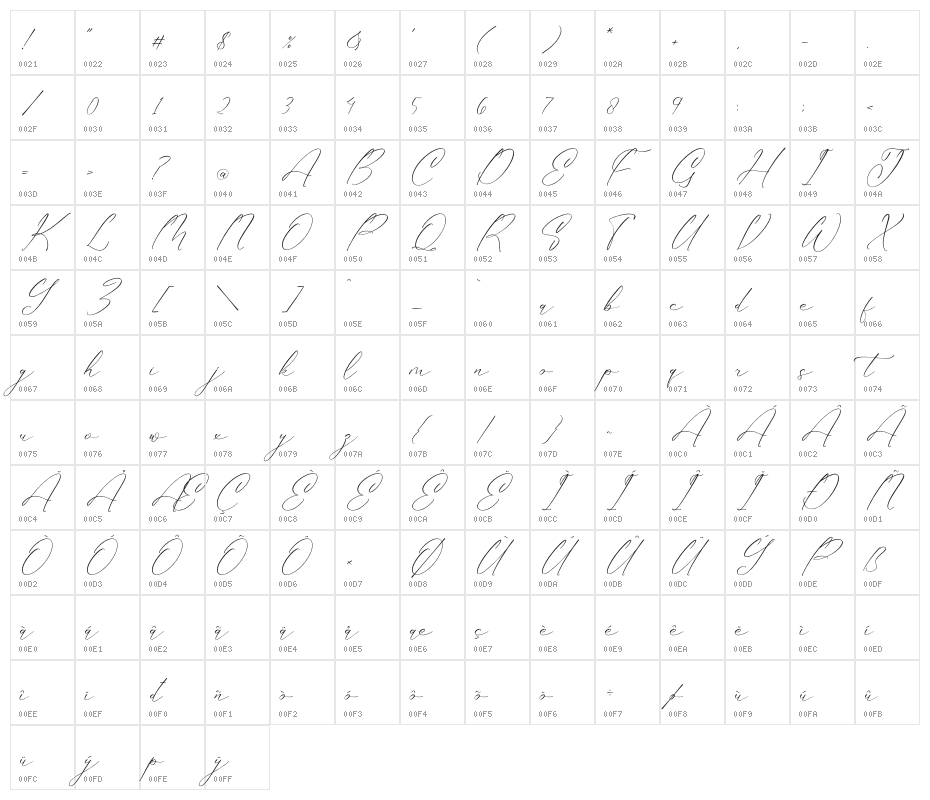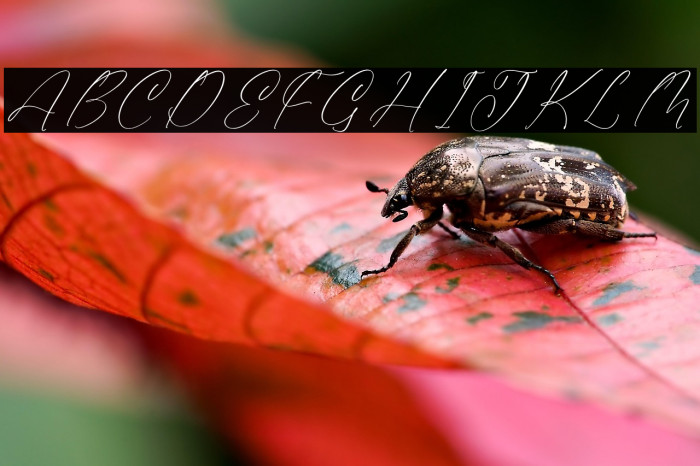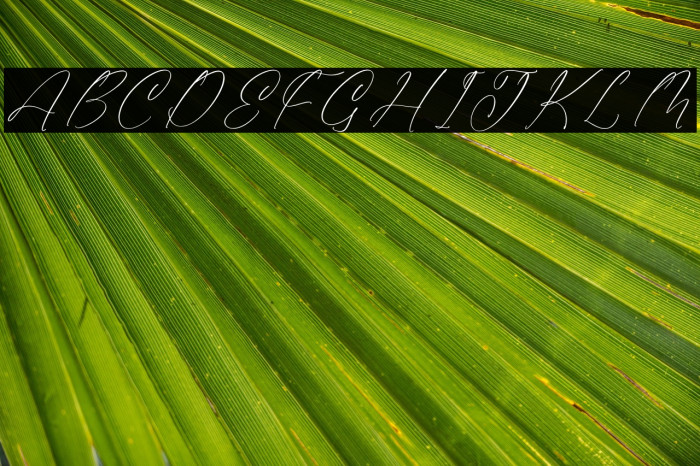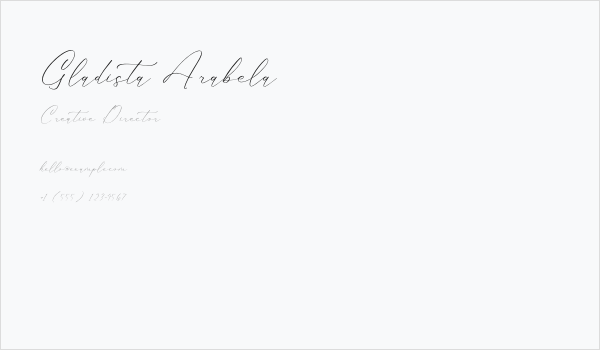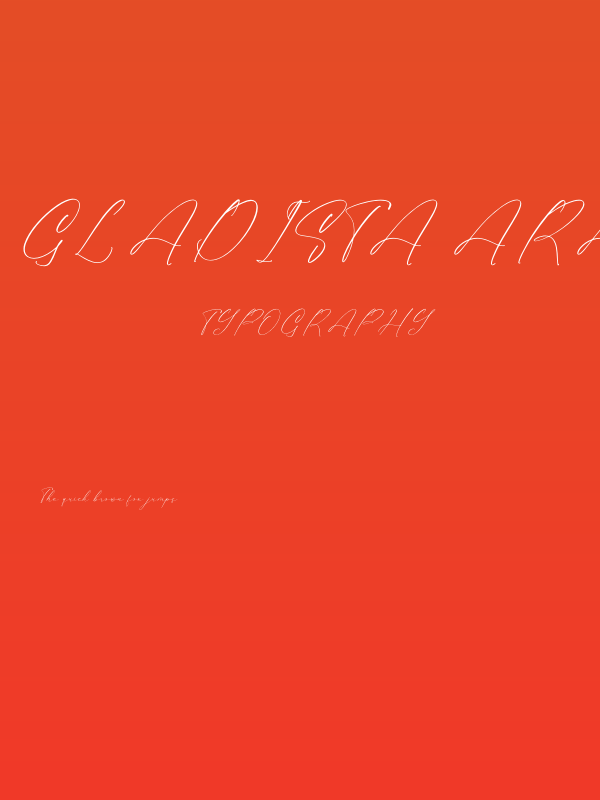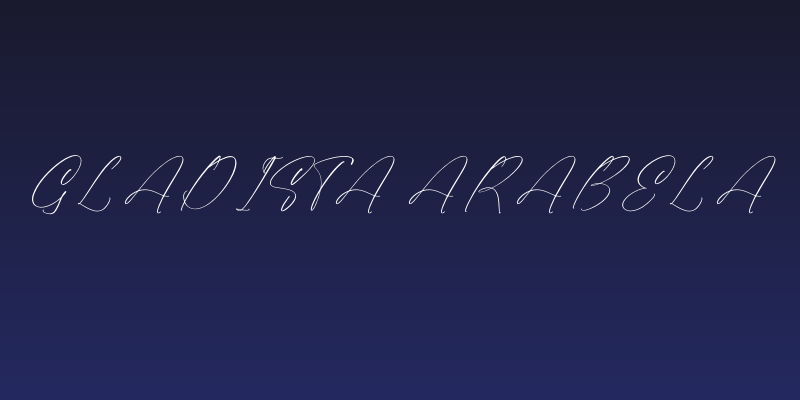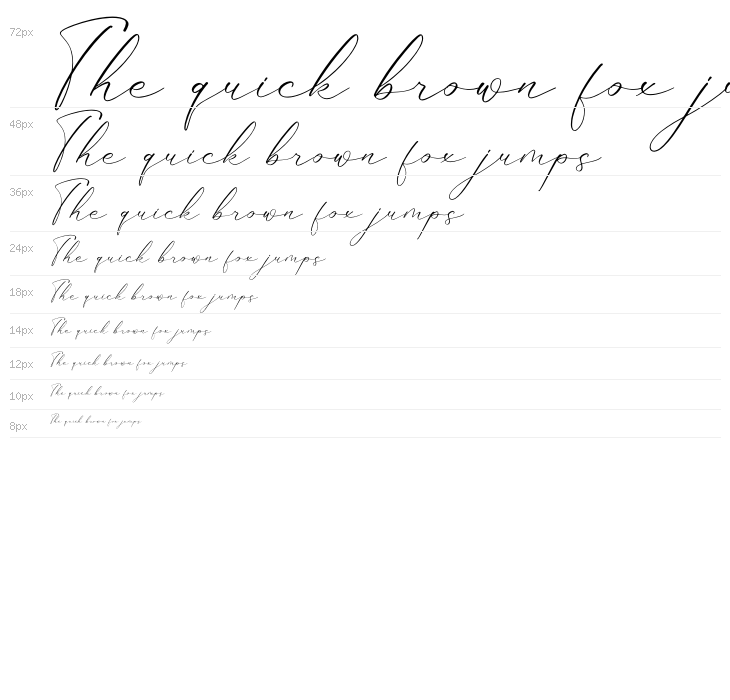
Gladista Arabela Font
Gladista Arabela Description
This elegant script font features a flowing, cursive style with delicate, thin strokes that convey a sense of sophistication and grace. The uppercase letters are slightly more ornate, with gentle curves and loops, while the lowercase letters maintain a consistent fluidity, enhancing readability. The numerals and special characters are designed to match the overall aesthetic, providing a cohesive look. This font is perfect for projects that require a touch of elegance and personal flair, such as wedding invitations, branding, and high-end product packaging.
| Overall Style | Elegant, Sophisticated |
| Use Case | Headlines, Invitations, Branding |
| Proposed Projects | Ideal for wedding invitations, elegant branding, luxury product packaging, and personal stationery. |